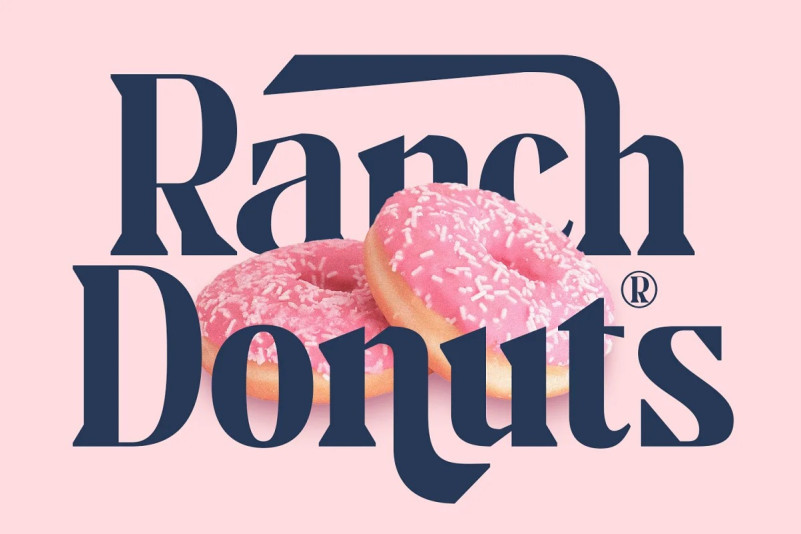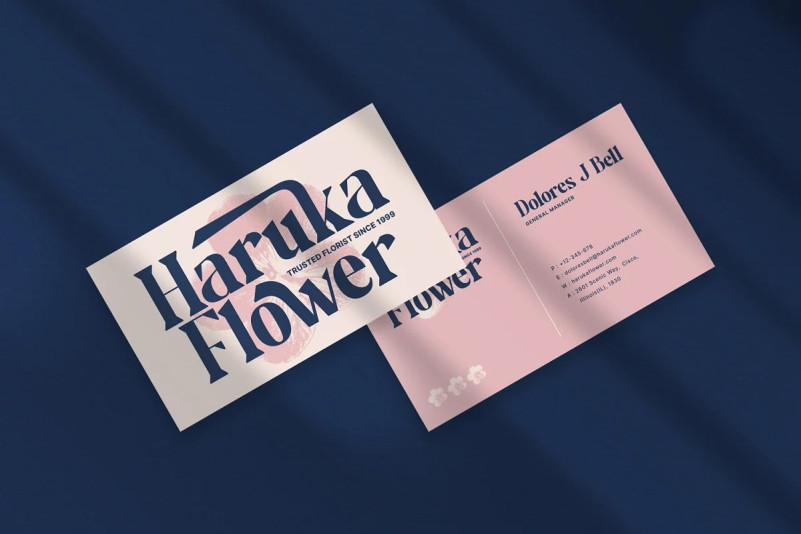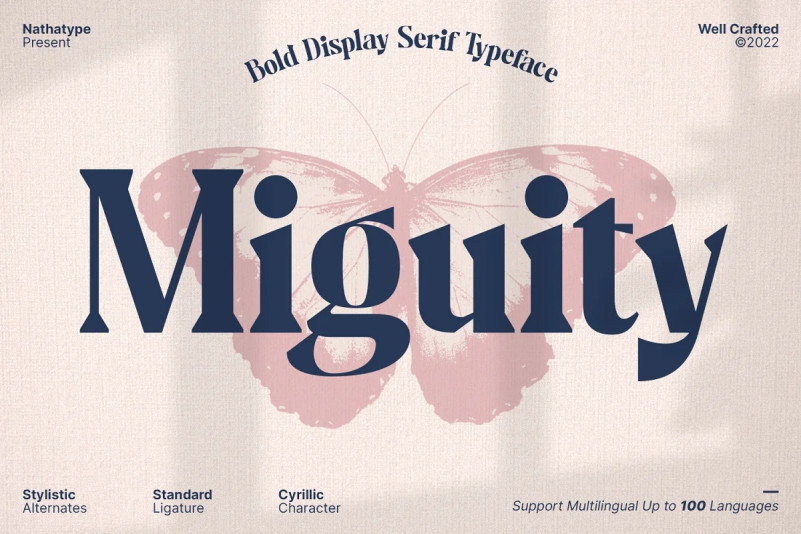
Miguity Font
Miguity Serif Font is a display serif font in thick volumes designed to leave professional, formal, lovely impressions. This font’s character is the hook on the final corners of each letter. Plus, some of the letters show swinging wipes on their edges. It surely eases the eyes to explore the text to add its readability.